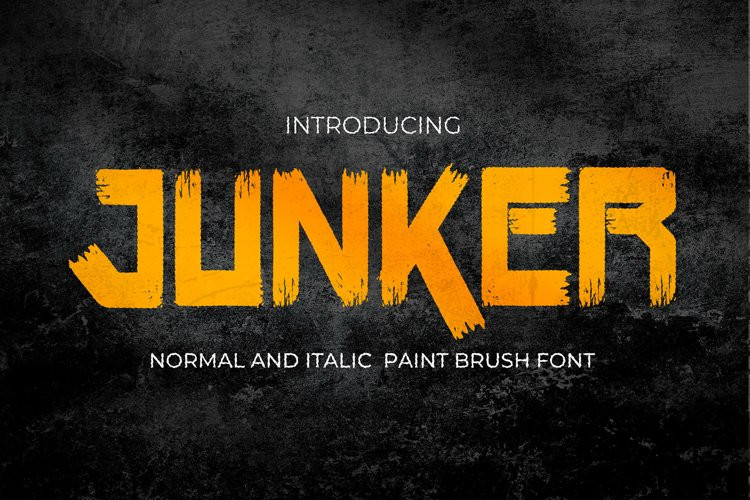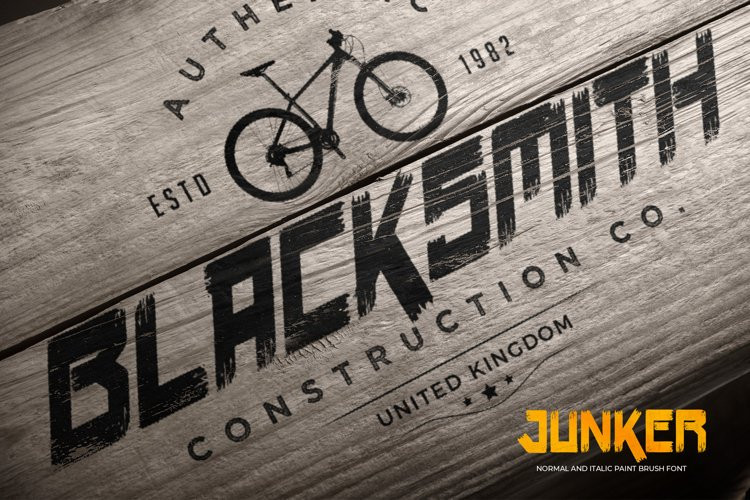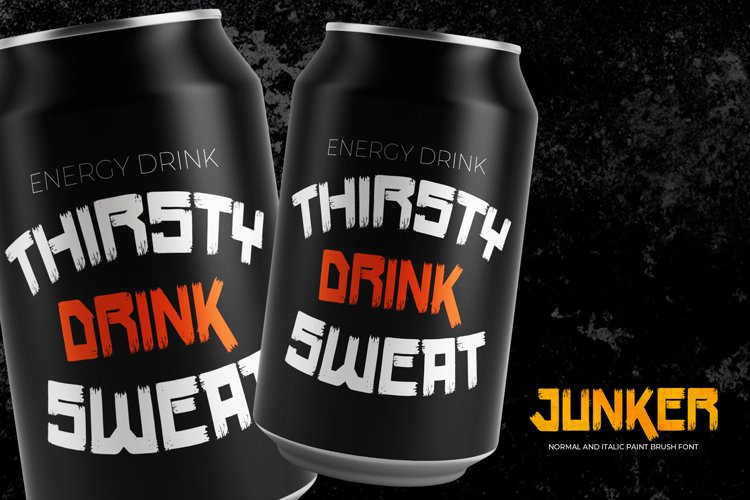
JUNKER Font
JUNKERJUNKERJUNKERJunker – Normal And Italic Paint Brush Font with a natural style and dramatic movement. Crafted manually with love and passion, This font is great for your next creative project such as logos, printed quotes, invitations, cards, product packaging, headers, Logotype, Letterhead, Poster, Label, and etc.
JUNKER